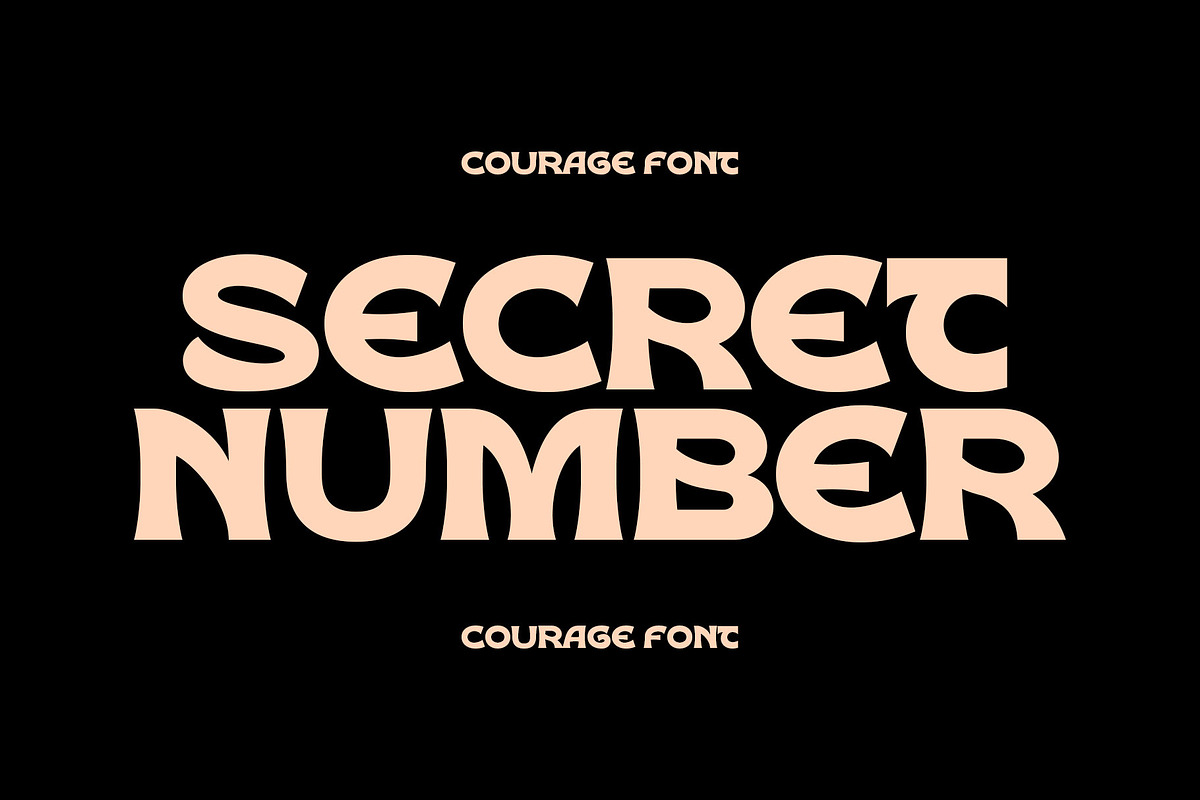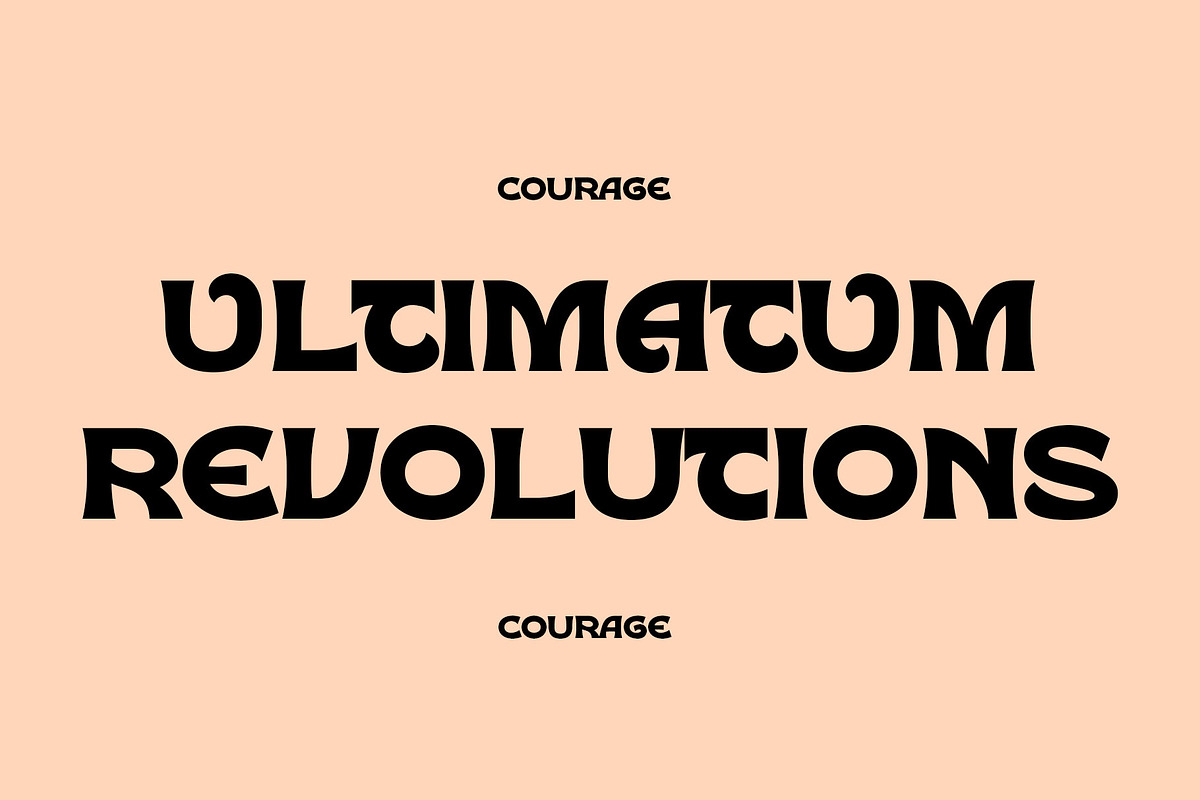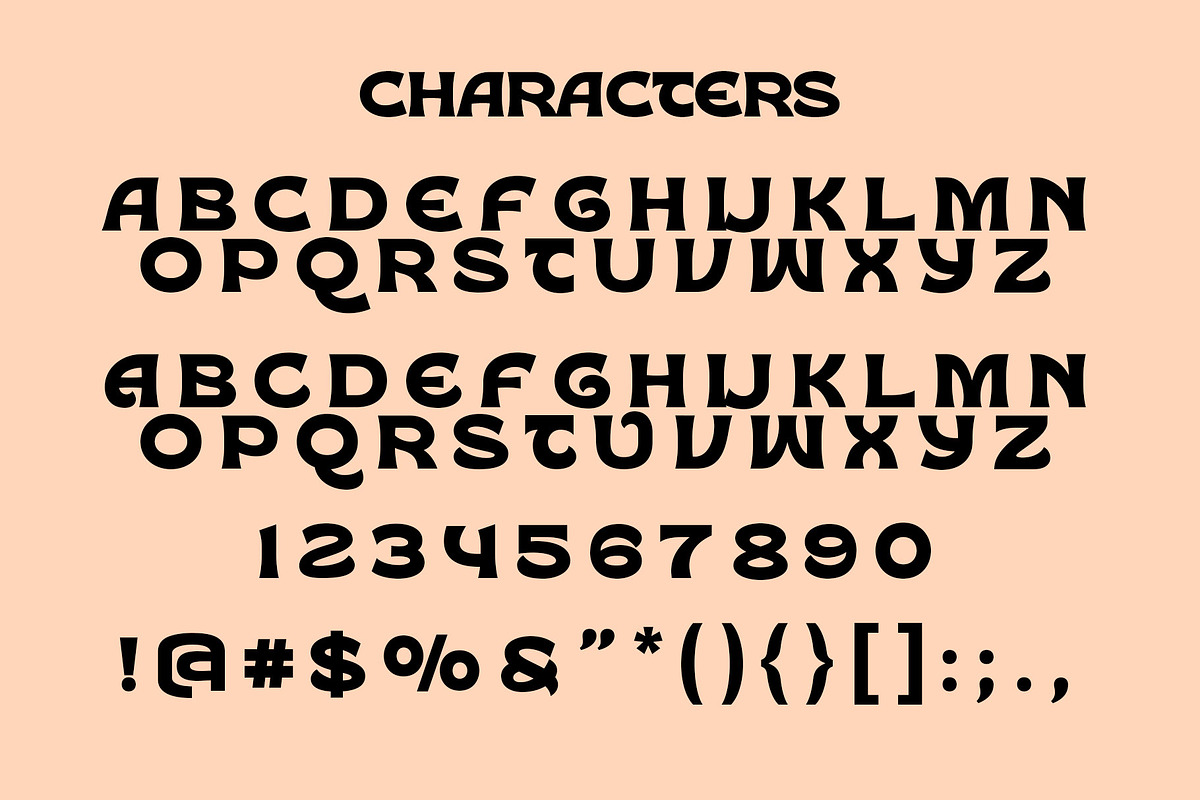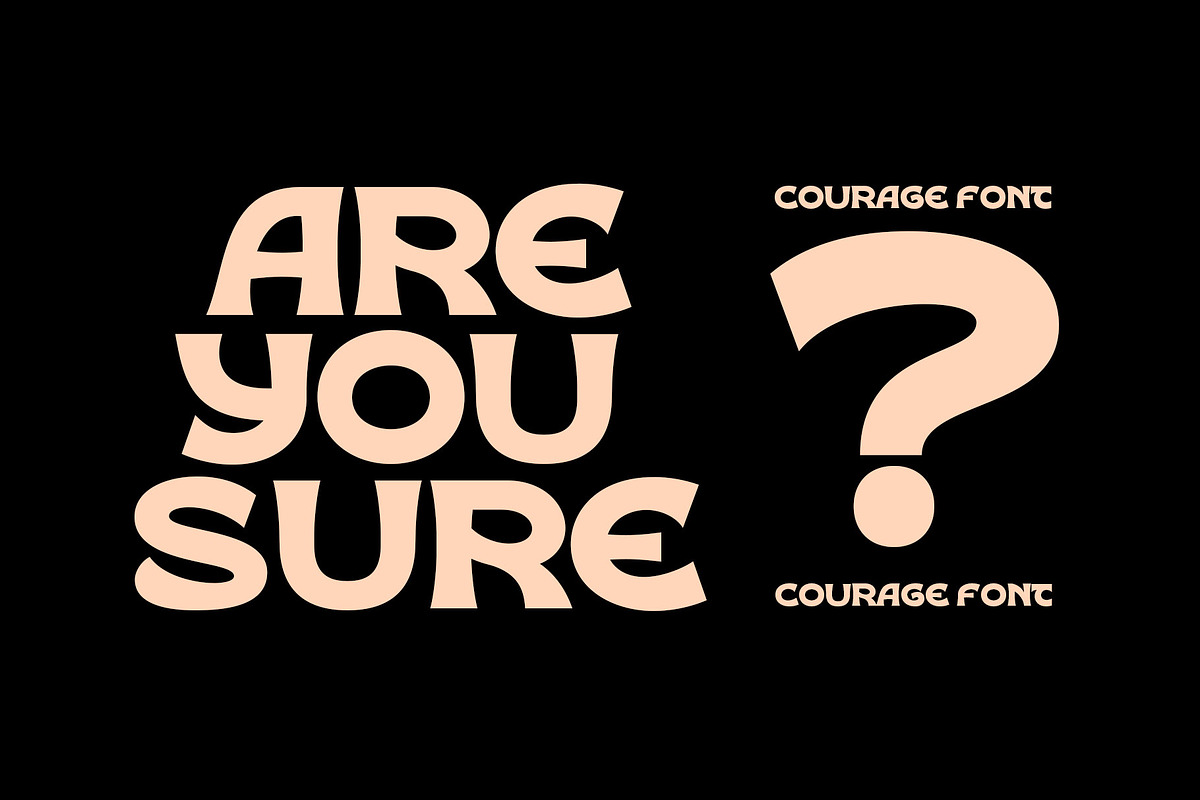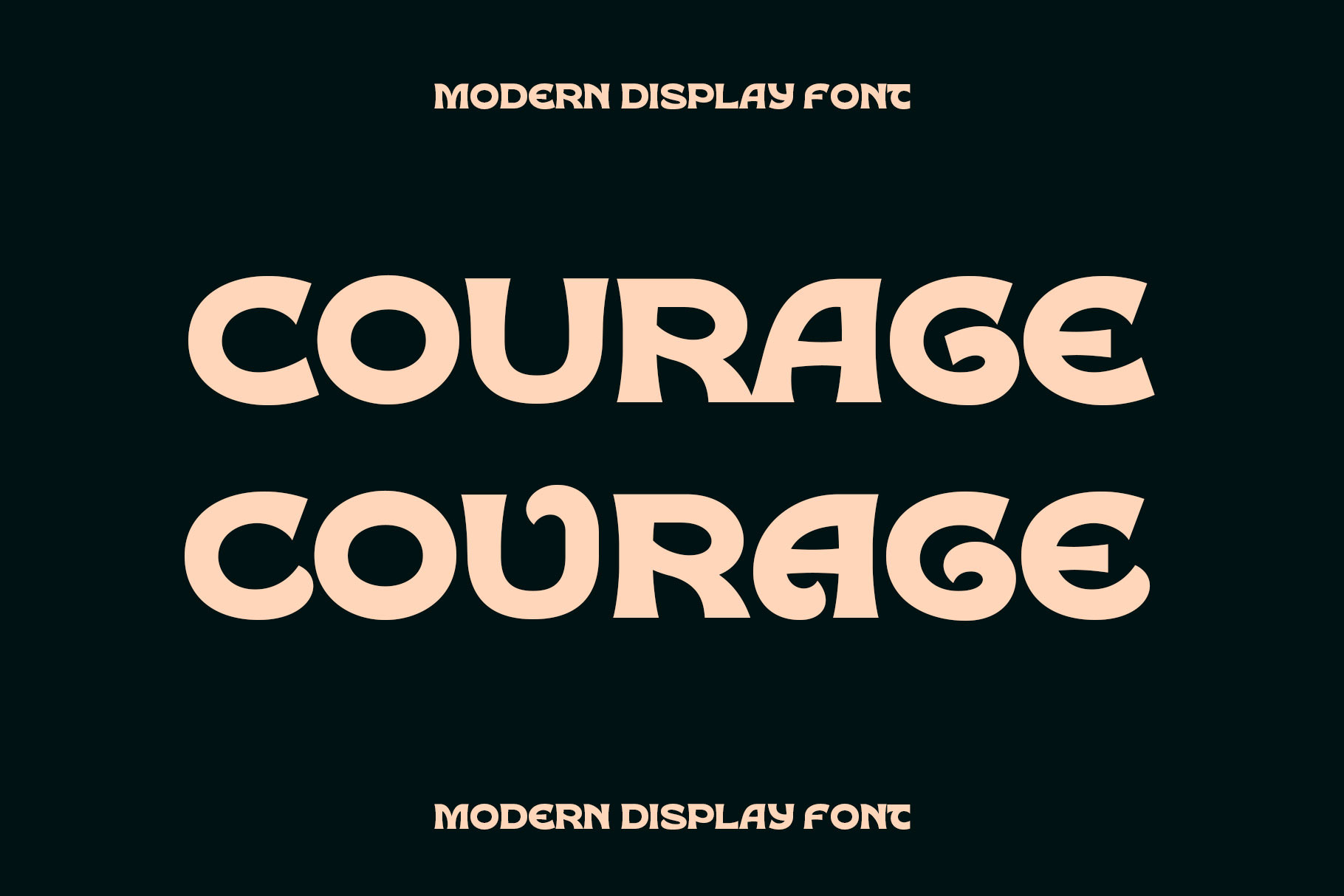
COURAGE DISPLAY FONT
Hello everyone, on this occasion we would like to introduce our newest product, which we named "COURAGE". back to vintage and classic styles. will really help your design look more classic and special.